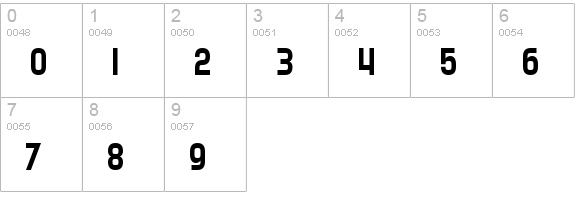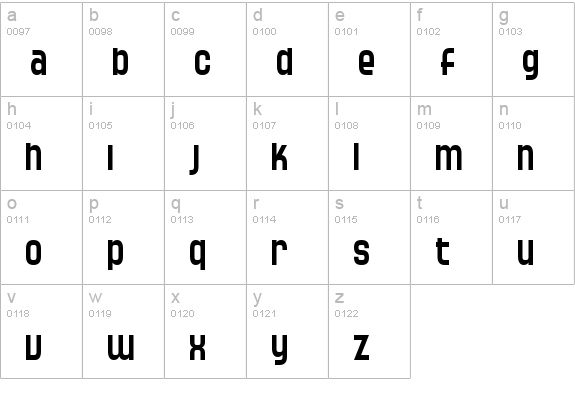
SF Speedwaystar Condensed is a distinctive, condensed-width variant in the SF typeface family \xE2\x80\x94 well suited to design and typography projects.
Introducing SF Speedwaystar Condensed, a sleek and stylish font designed to add a touch of speed and modernity to your projects. With its condensed form and sharp edges, this typeface is perfect for capturing the fast-paced energy of racing and automotive designs. SF Speedwaystar Condensed is not only visually captivating, but it also exudes an air of professionalism and confidence. Its clean lines and balanced proportions make it highly legible, ensuring that your message is conveyed effortlessly. Whether you're creating race posters, sports logos, or website headers, this font will make a bold statement and leave a lasting impression. One of the most appealing aspects of SF Speedwaystar Condensed is that it is freely available to download at FontsMarket.com. This means that you can easily access this dynamic font without any limitations or costs, allowing you to unleash your creativity without restrictions. Embrace the power of this font and explore the endless possibilities it offers in enhancing your designs. With SF Speedwaystar Condensed, you have the freedom to experiment with various typographic compositions and create visually stunning graphics that capture attention. Its versatility lends itself to a wide range of applications, from branding and advertising to social media posts and product packaging. Don't miss out on the opportunity to elevate your designs with SF Speedwaystar Condensed. Download this font for free at FontsMarket.com and unlock the potential to create captivating visuals that will leave a lasting impression on your audience.